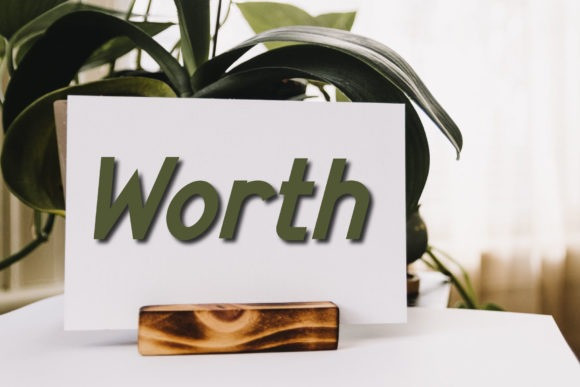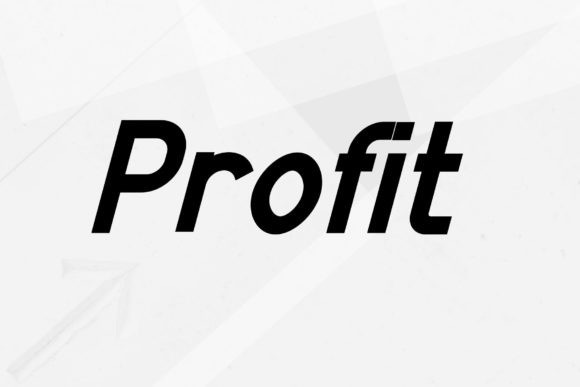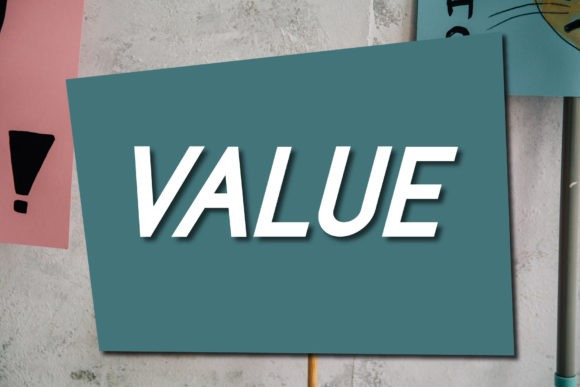
Value Font is a clean and modern looking sans serif font. Add this minimalist and techno styled font to your web designs, logos or pretty much anything that requires a smart, cool touch.
| Classification: | Sans Serif Fonts, Style / Aesthetic Fonts |